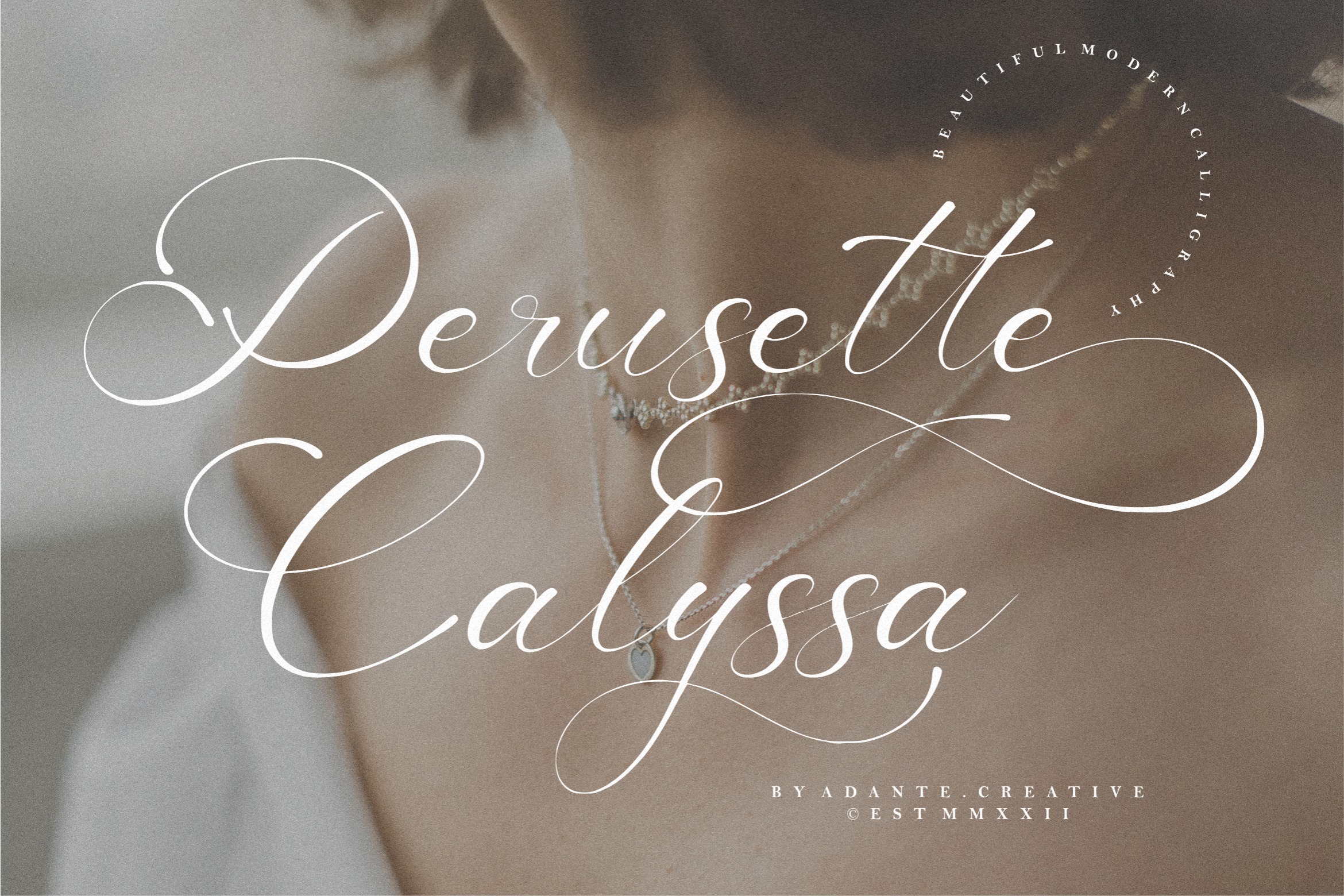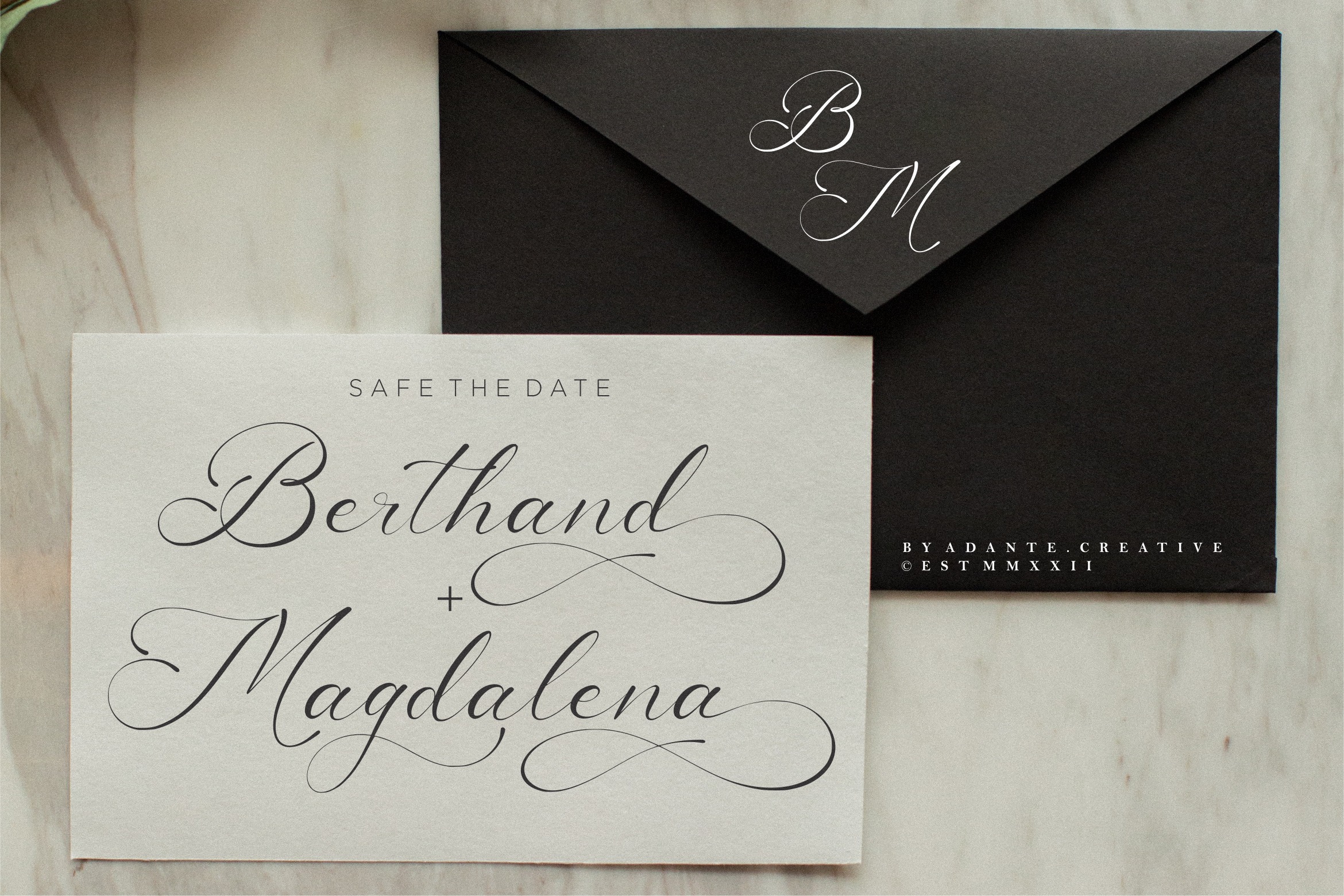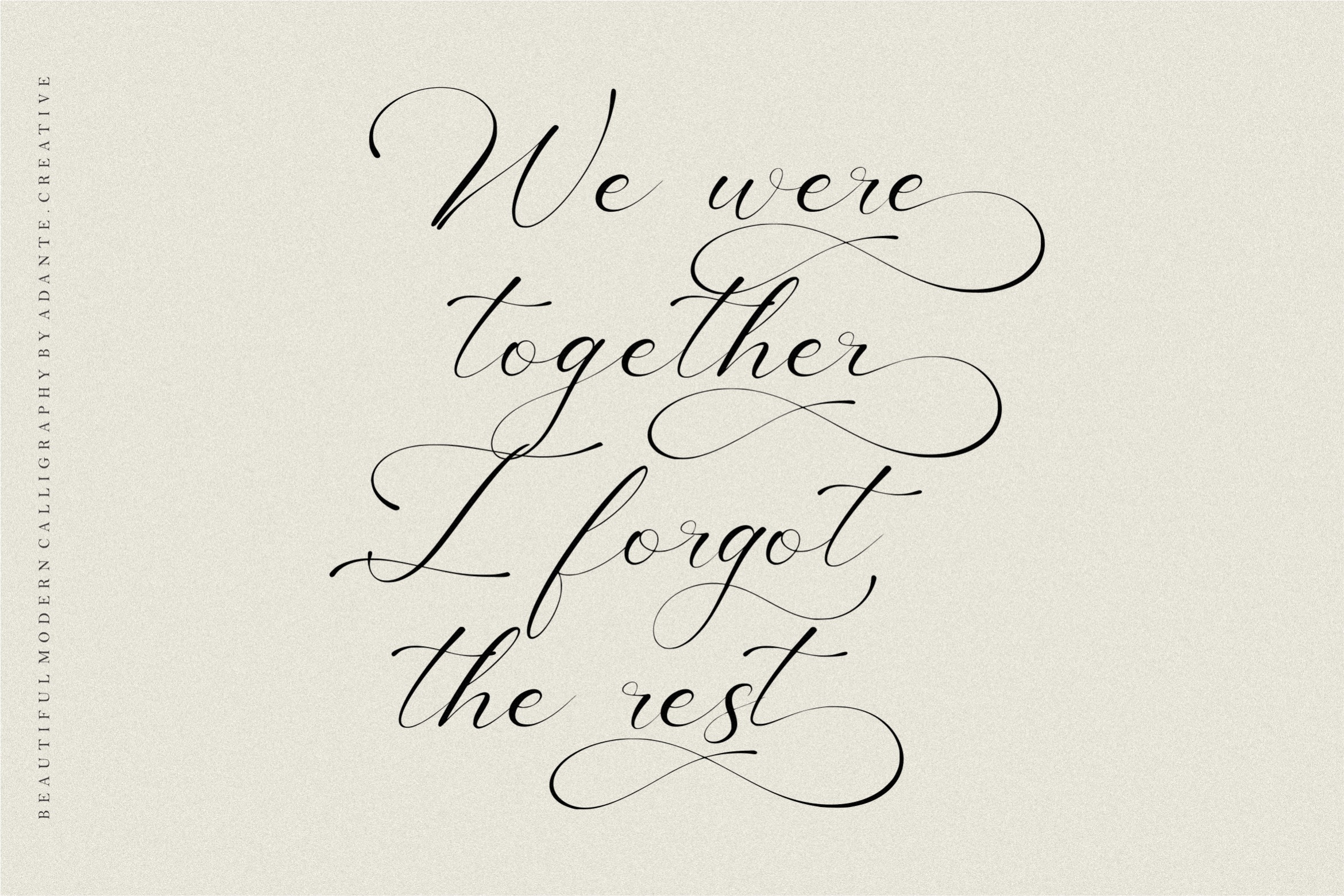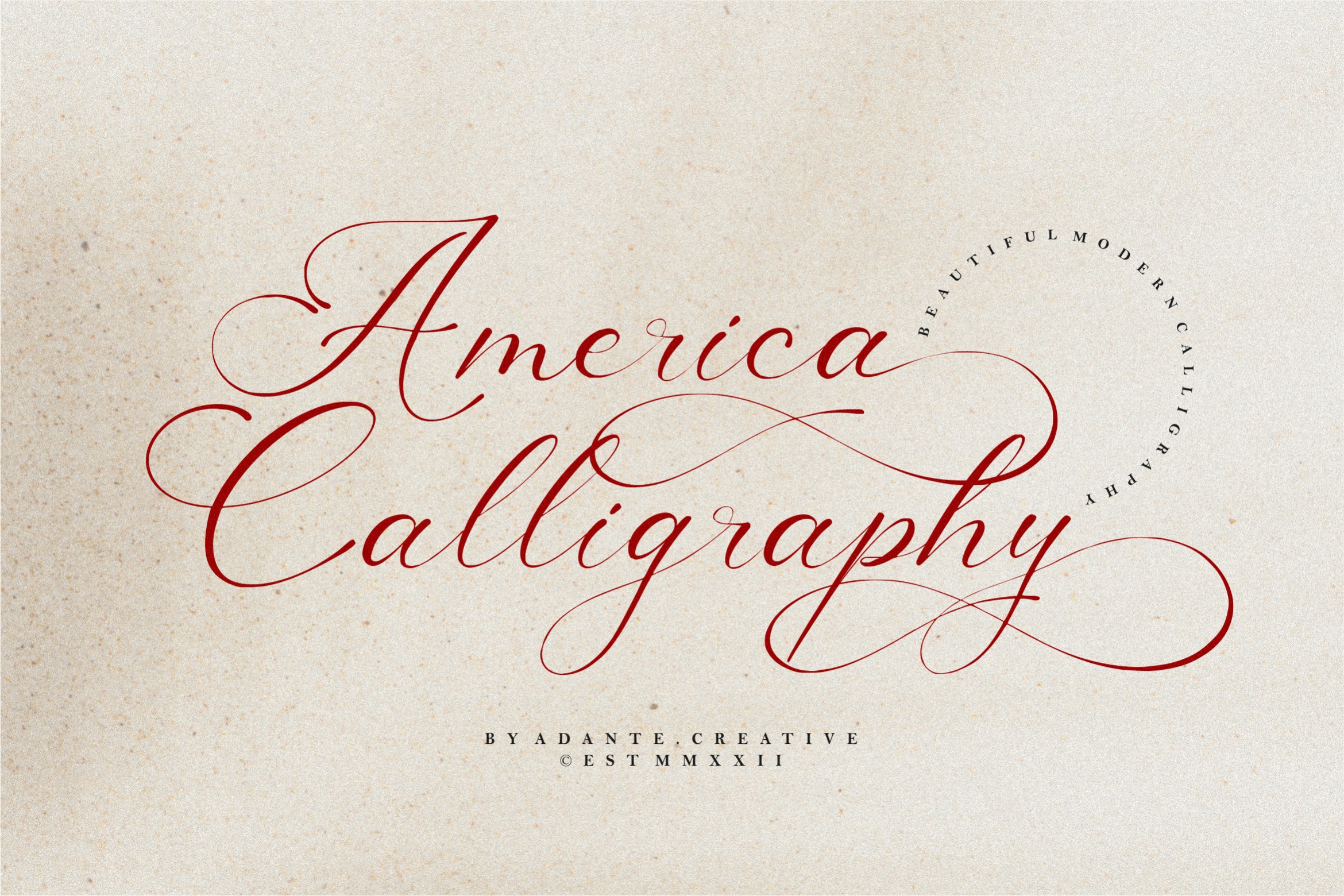
America Calligraphy Font
It’s a popular and professional calligraphy font. It is Modern and elegant, this typeface is made of beautiful, creative strokes. America Calligraphy is perfect for product packaging, branding project, megazine, social media, wedding, or just used to express words above the background.